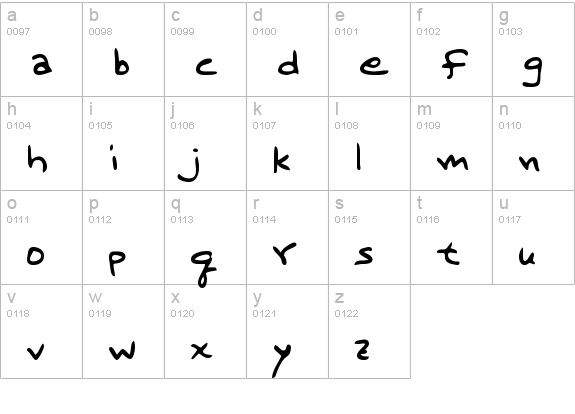
MarcelsHand Regular Font Details
MarcelsHand Regular is the standard, neutral variant in the MarcelsHand typeface family \xE2\x80\x94 well suited to general body text, paragraphs, and standard typographic work.
MarcelsHand Regular font is a beautifully crafted typeface that captures the essence of handwritten text. With its natural and flowing strokes, this font brings a sense of warmth and authenticity to any design project. The characters of MarcelsHand Regular font are carefully hand-drawn, giving them a unique and charming appeal. Each letter is filled with personality and character, making it perfect for adding a personal touch to invitations, greeting cards, posters, and more. One of the best features of MarcelsHand Regular font is that it is freely available to download at FontsMarket.com. This means that you can easily enhance your designs without having to spend a penny. Whether you are a professional designer or a hobbyist, this font offers endless possibilities for creativity. Whether you want to add a personal touch to your branding materials or create eye-catching headlines, MarcelsHand Regular font is the perfect choice. Its versatility and charm make it suitable for a wide range of design projects. So why wait? Download MarcelsHand Regular font for free at FontsMarket.com and let your creativity flow. Whether you are designing for print or digital media, this font will surely make your designs stand out.